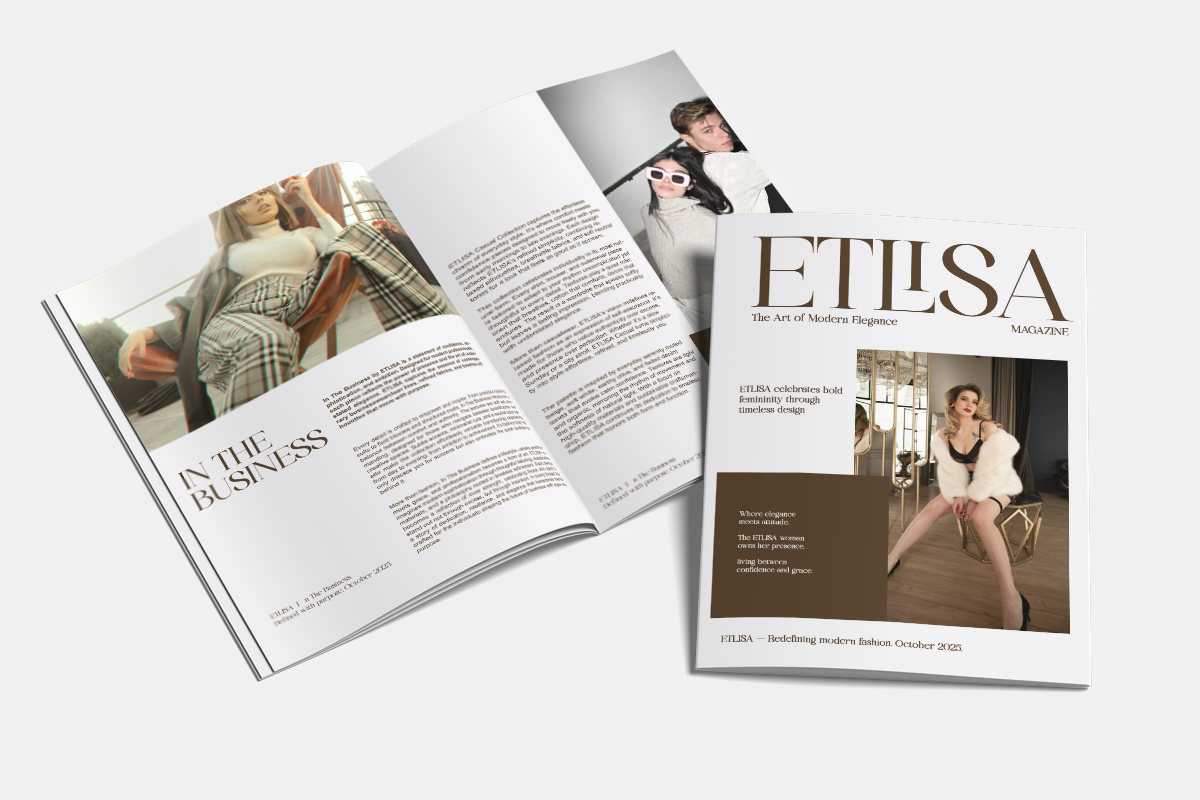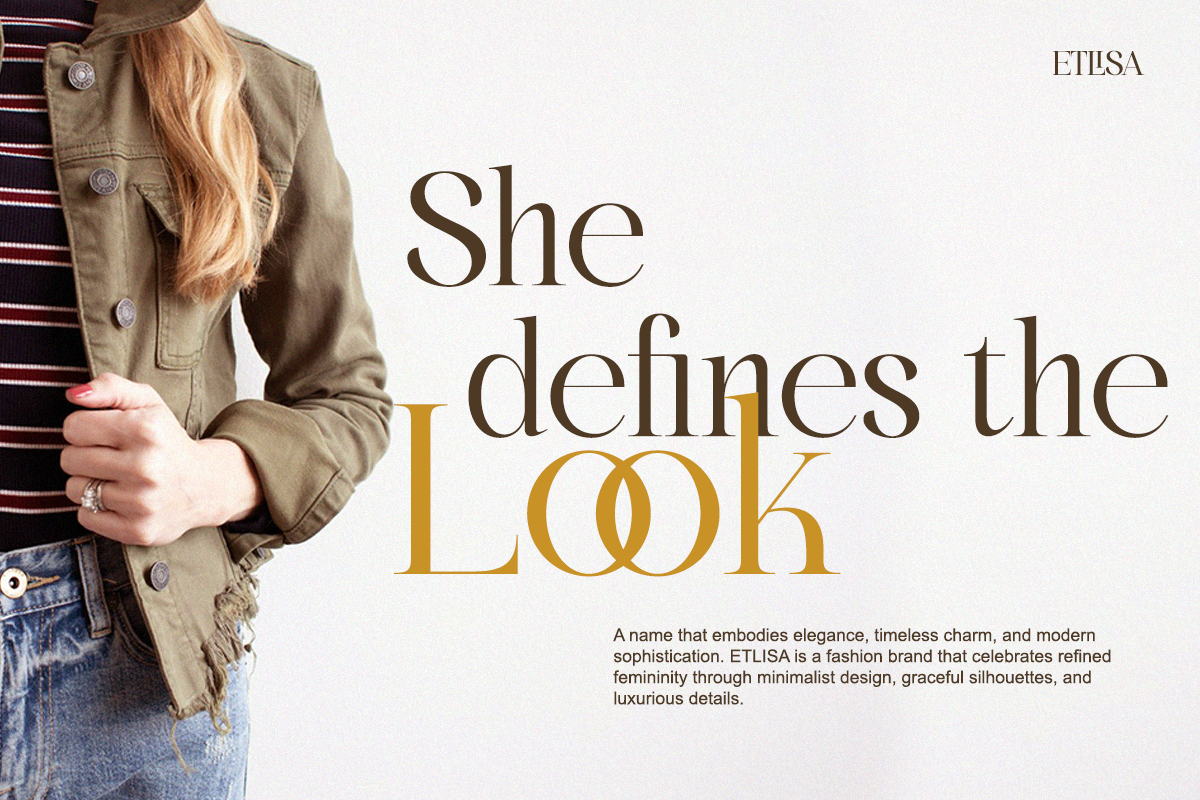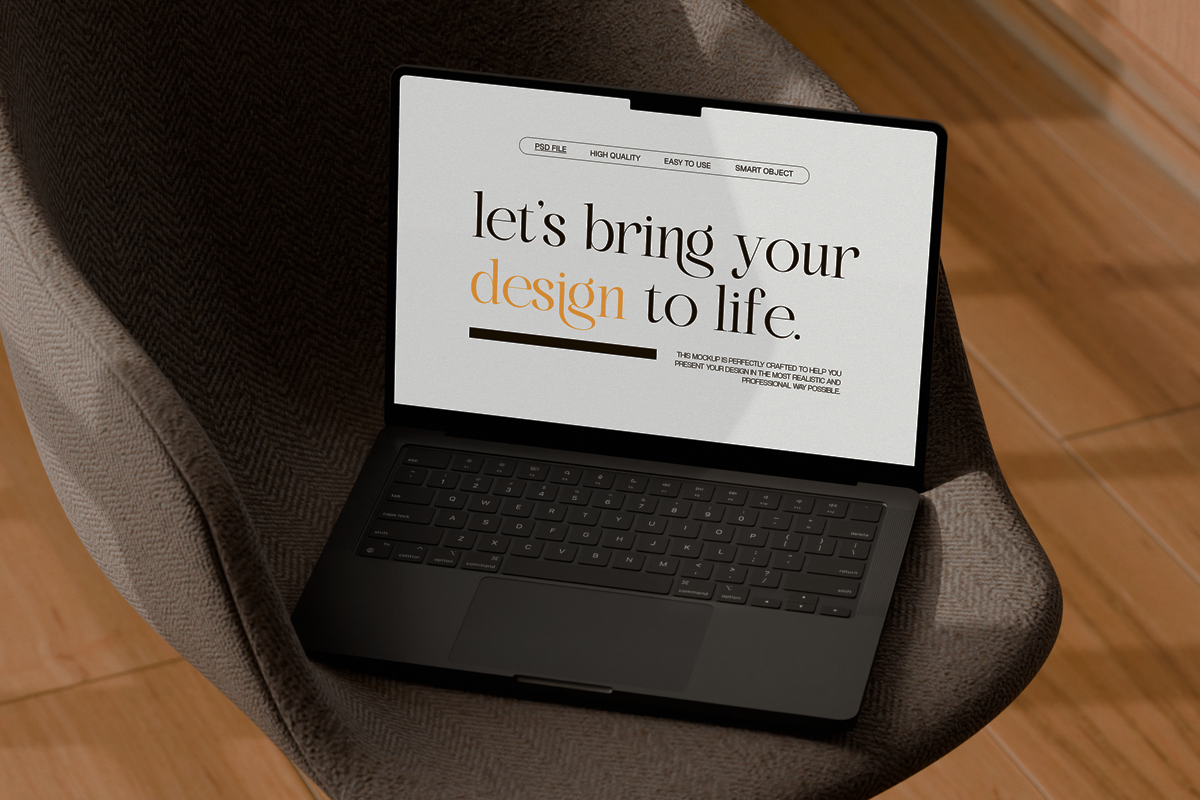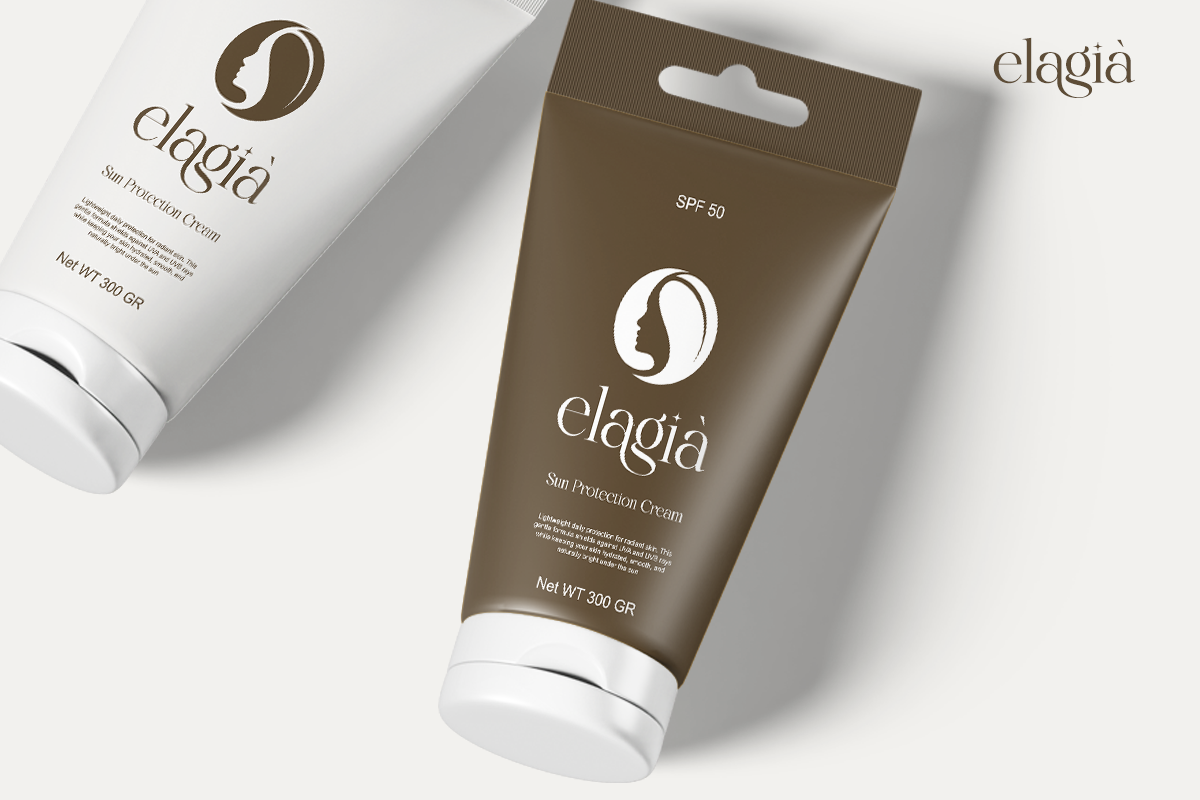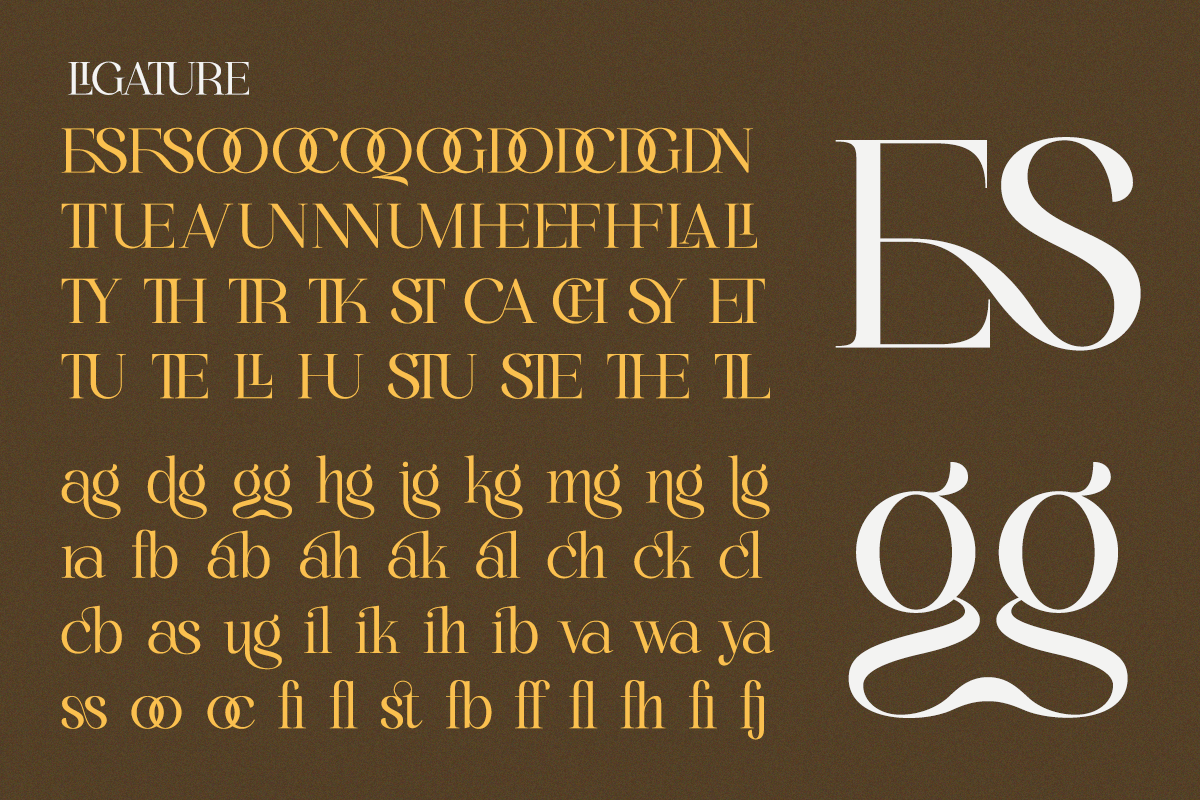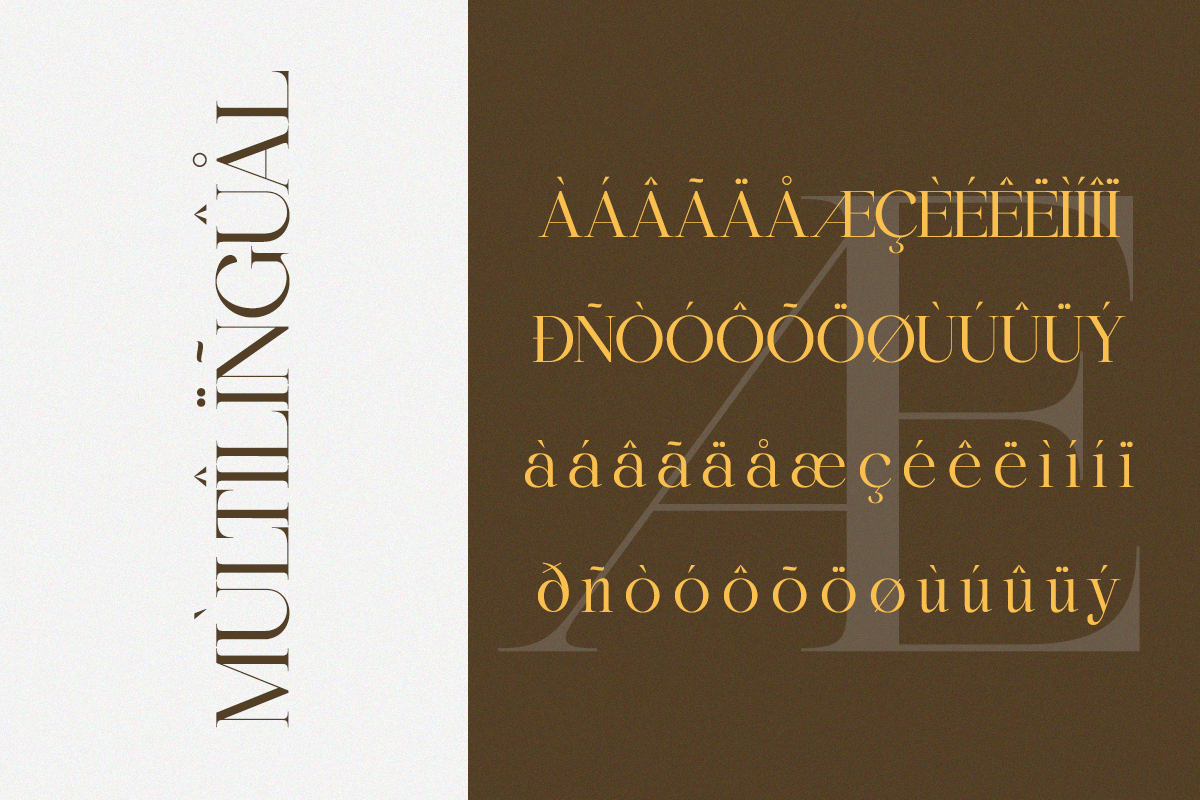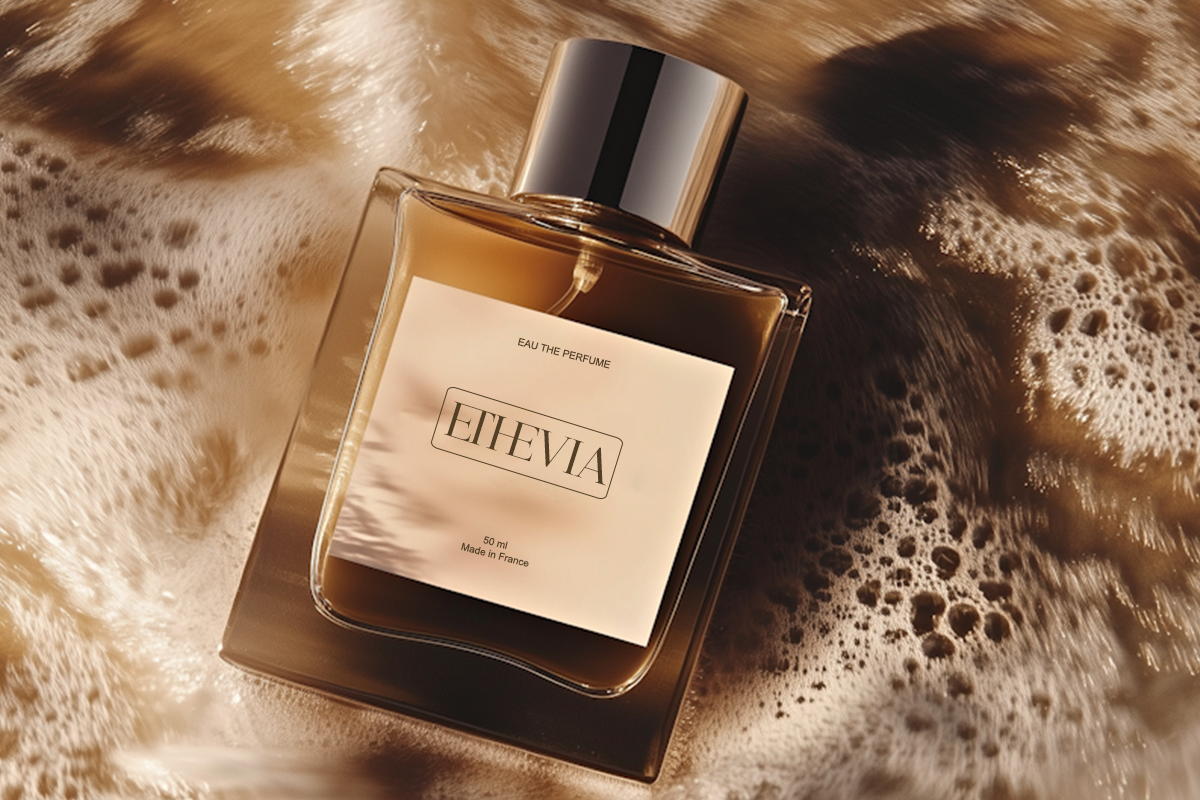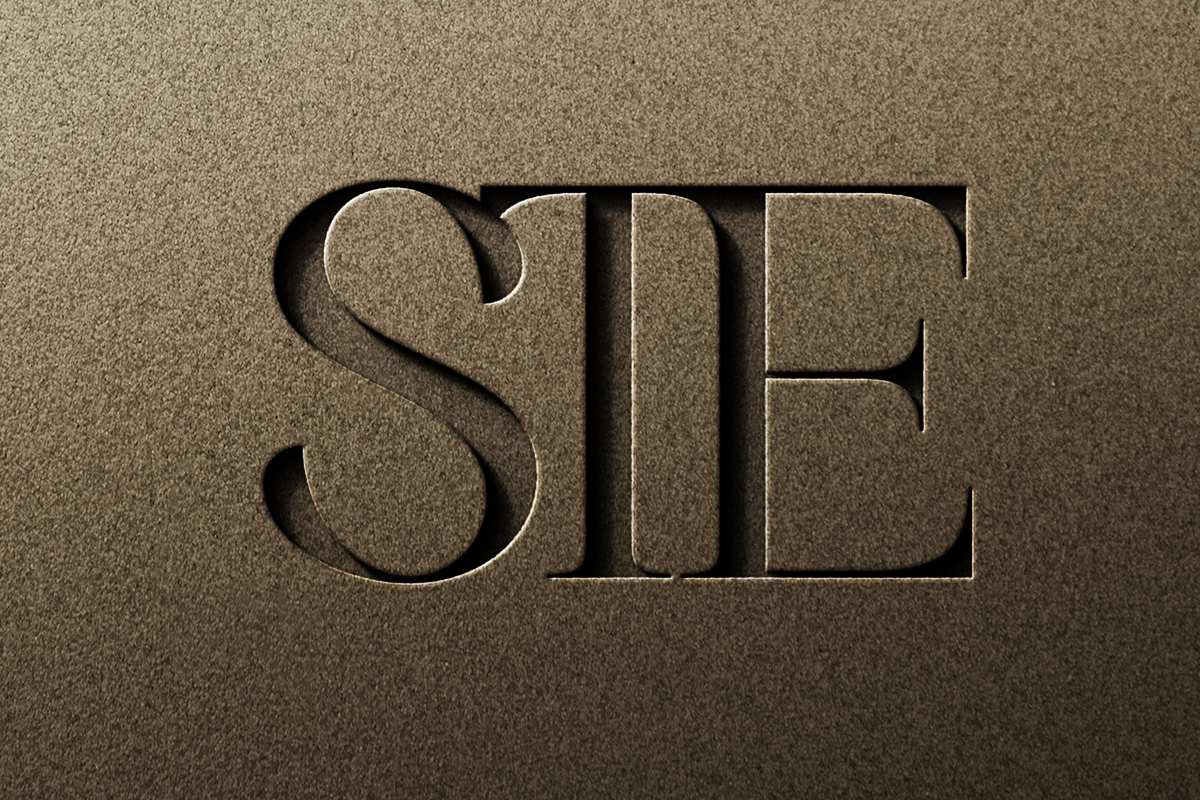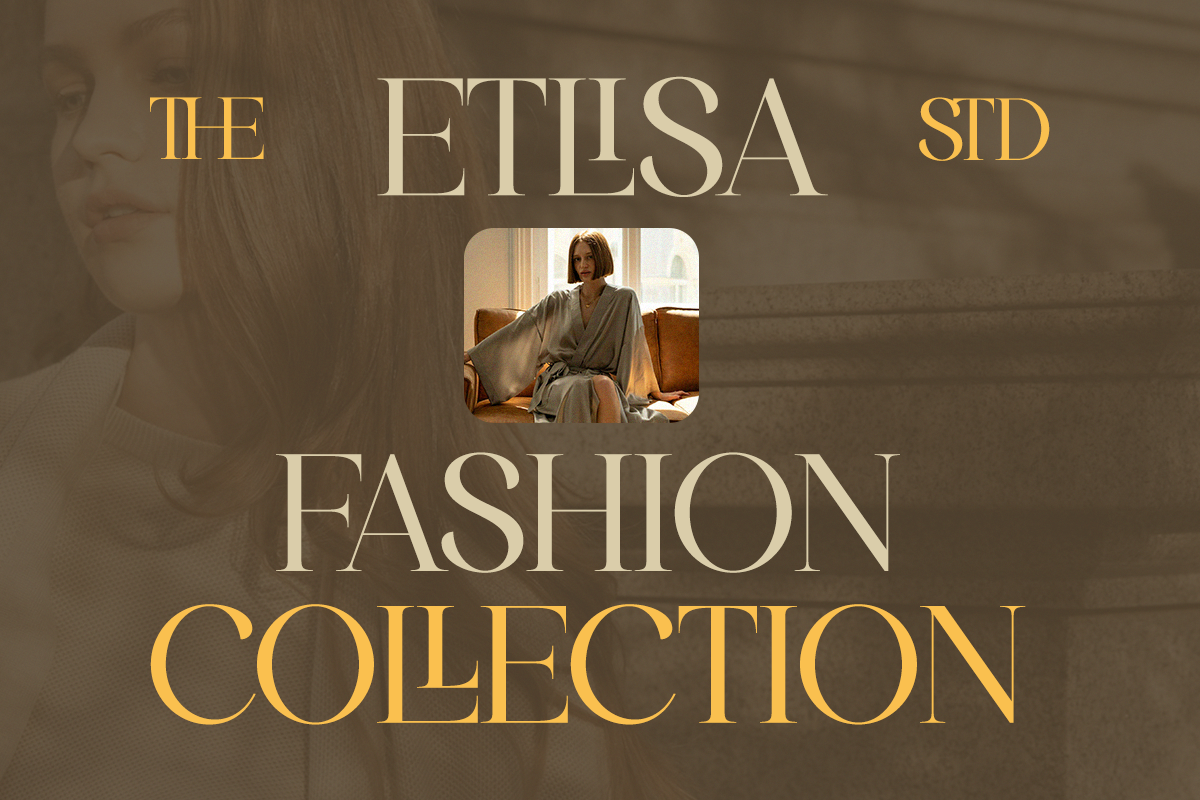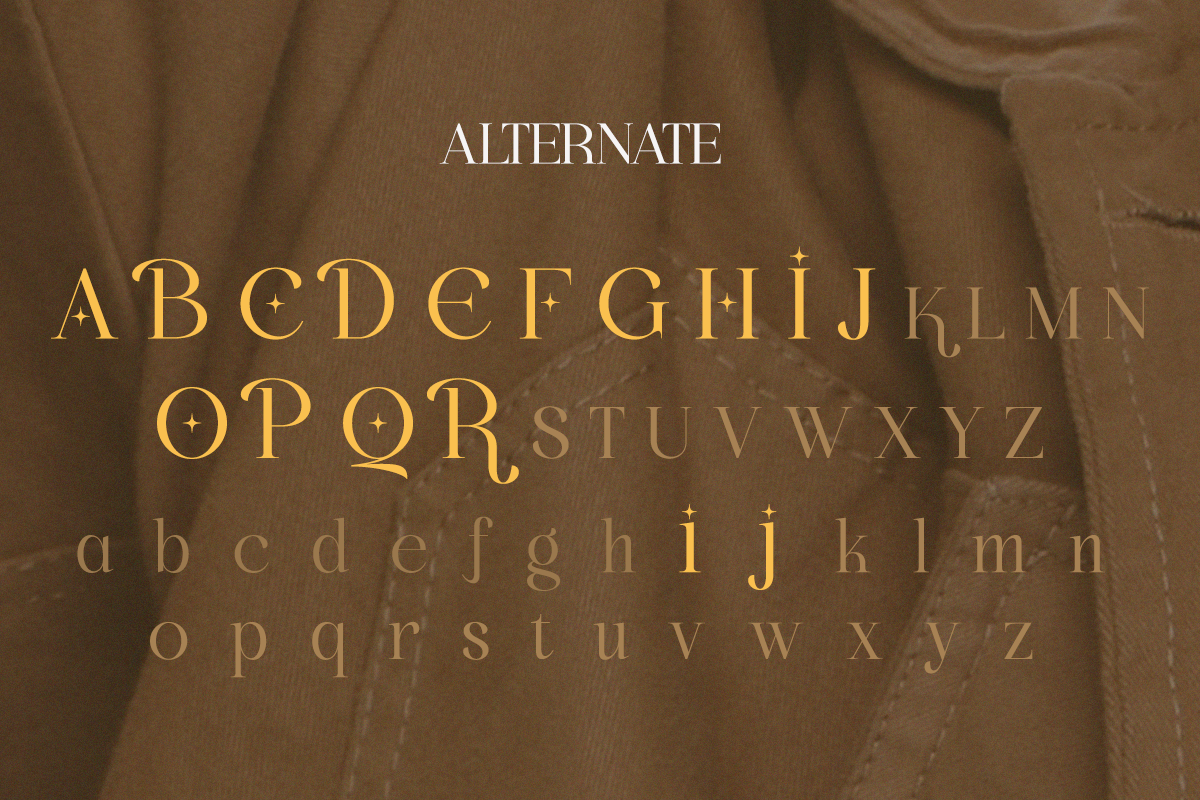
Bigalfia - An Elegant Modern Serif
Meet Bigalfia, a modern serif font created for elegance lovers. Its soft curves and refined details bring a calm, luxurious feel to any design.
Perfect for beauty brands, lifestyle projects, editorial headlines, or boutique identities, Bigalfia offers a confident yet gentle typographic presence that feels premium and timeless.
- Regular & Italic
- Full uppercase & lowercase
- Alternates and ligatures
- Elegant contrast strokes
Perfect For Beauty branding, skincare packaging, boutique logos, editorial layouts, fashion brands, wedding stationery, and lifestyle marketing.